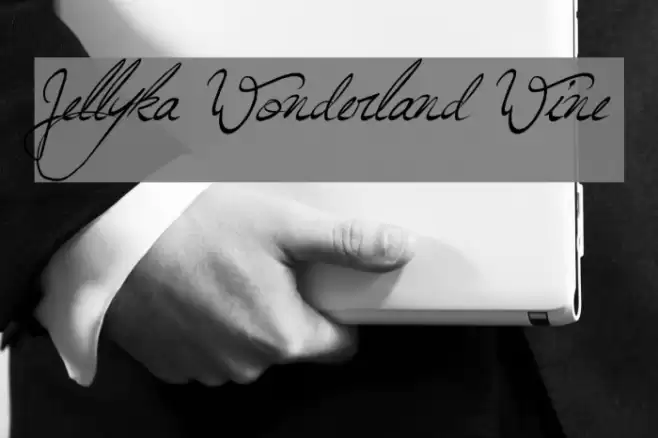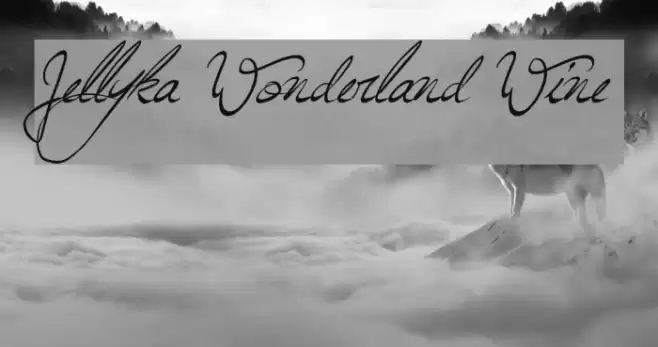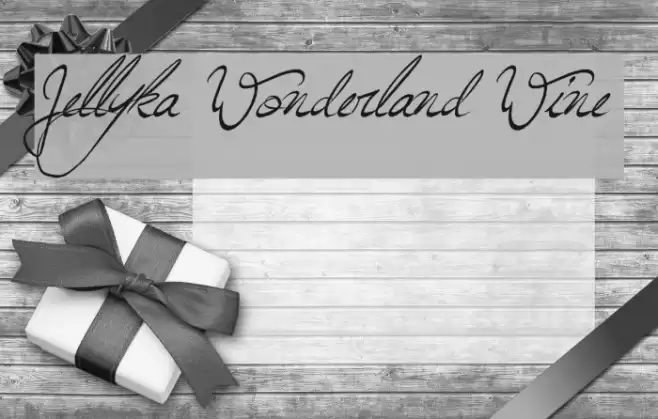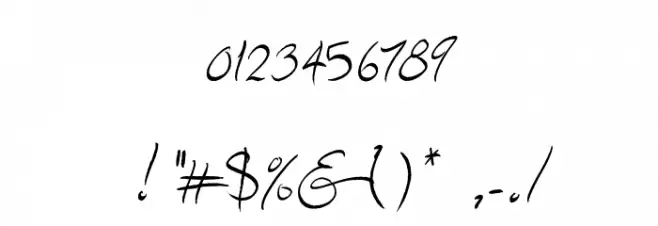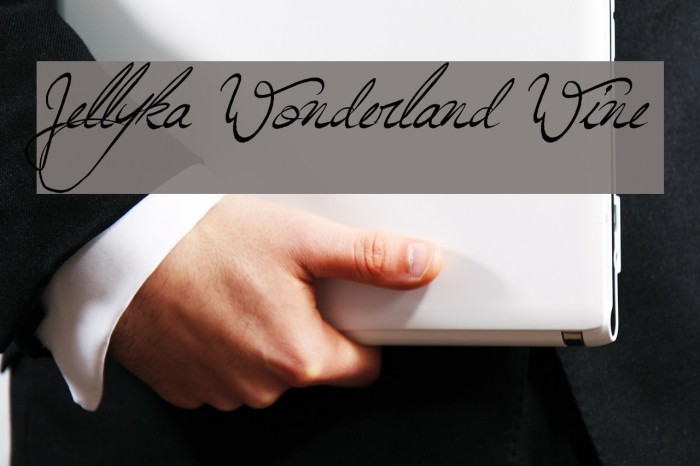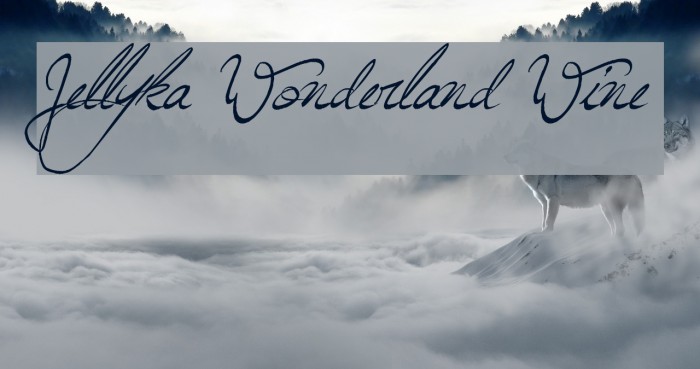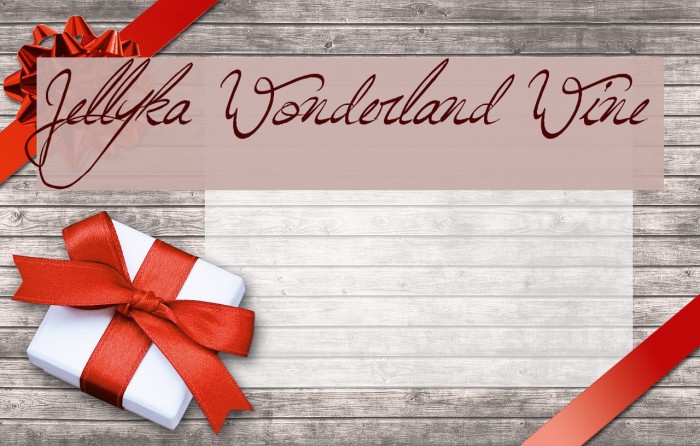
Jellyka Wonderland Wine Font
Jellyka Wonderland Wine Description
This font exudes an elegant and whimsical charm, characterized by its flowing, cursive script style. The letters are intricately designed with flourishes and loops, giving it a hand-drawn, artistic appearance. The uppercase letters are particularly ornate, with exaggerated curves and swirls that add a sense of drama and sophistication. The lowercase letters maintain a consistent style, with smooth transitions and a slightly slanted orientation. Numbers and special characters are crafted with the same attention to detail, ensuring a cohesive look across all elements. This font is perfect for projects that require a touch of elegance and creativity.
A whimsical, cursive script font with elegant flourishes and loops from Uncategorized fonts.